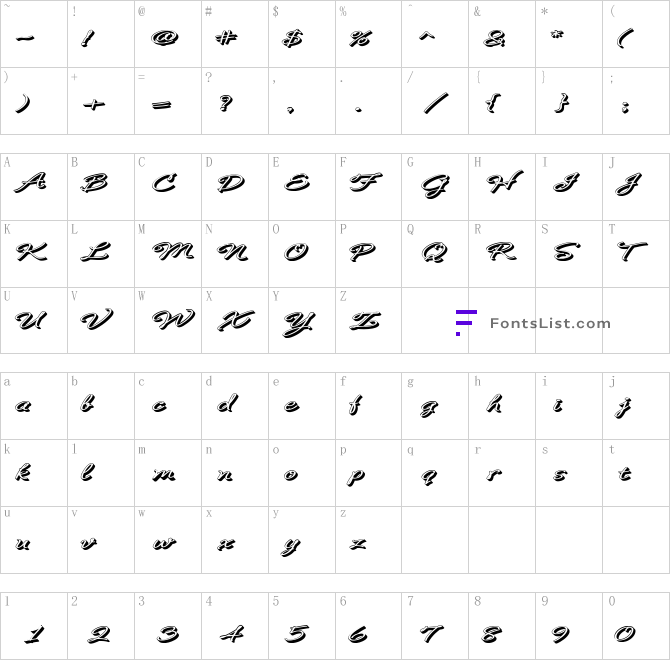
- Font Name:B de bonita
B-de-bonita-Rotulo.ttf is a very beautiful artistic font, B-de-bonita-Rotulo.ttf is widely used in the design and printing of various books and pictures,B-de-bonita-Rotulo.ttf has a strong visual impact,B-de-bonita-Rotulo.ttf is a commonly used font in newspapers, magazines and books, and is used in posters, e-commerce Poster design, store design, logo design, font design and other fields.B-de-bonita-Rotulo.